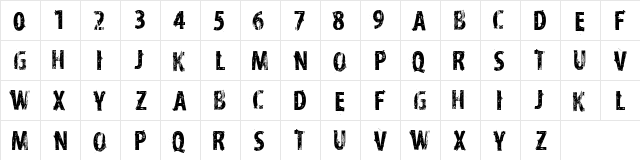
vtks distress Regular
| Foundry | DOUGLAS VITKAUSKAS |
| Designer | DOUGLAS VITKAUSKAS |
Design Context for vtks distress Typeface
vtks distress trades polish for personality, using distressed and eroded forms to bring grit and attitude to creative work.
Suited to punk-influenced zines, underground music branding, streetwear, and raw, anti-corporate design.
Pro Tip: Pair vtks distress with intentionally raw or lo-fi design elements. Fighting against it with overly polished surroundings will undermine its personality.